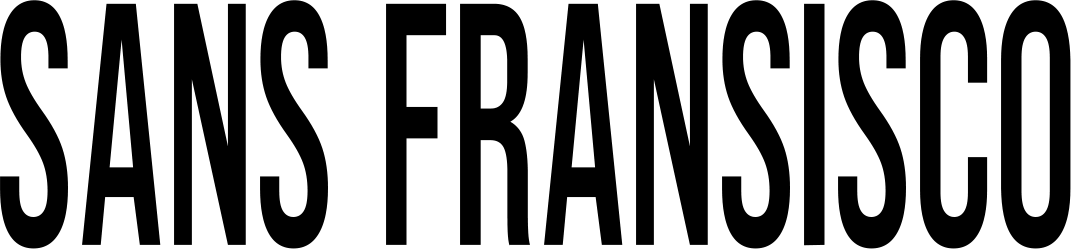
Sans Fransisco Font
Because the level of customers’ expectations from experienced graphic designers is very high, you should be careful in choosing the right font and try to satisfy the audience by using a sans serif font like Sans Fransisco.
It comes in two styles and adds acceptable variety to content such as posters, flyers, invitations, presentations, and billboards. Although this font does not support lowercase letters, it can convey a sense of friendliness, modernity, and professionalism.